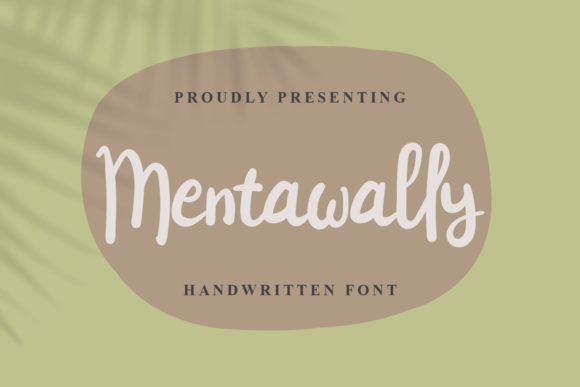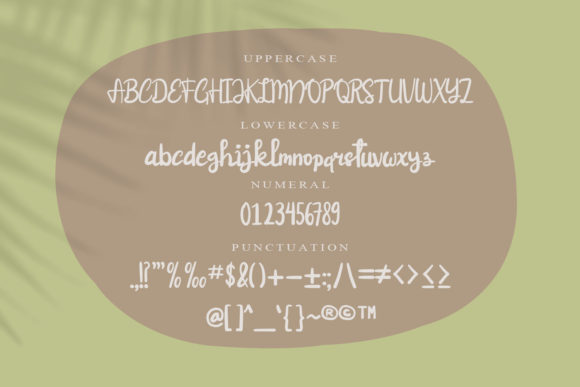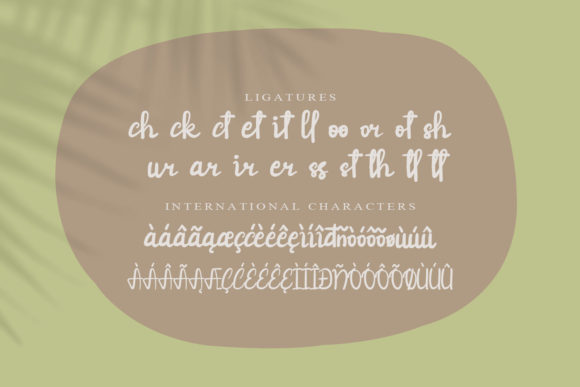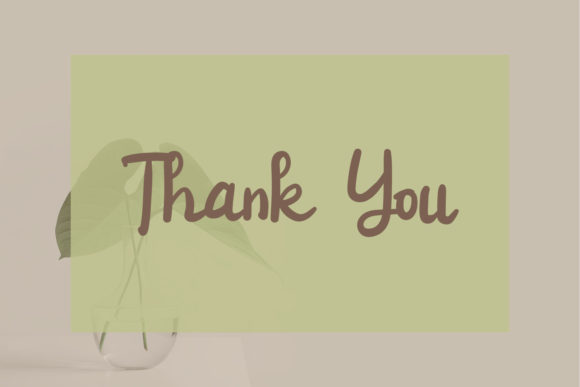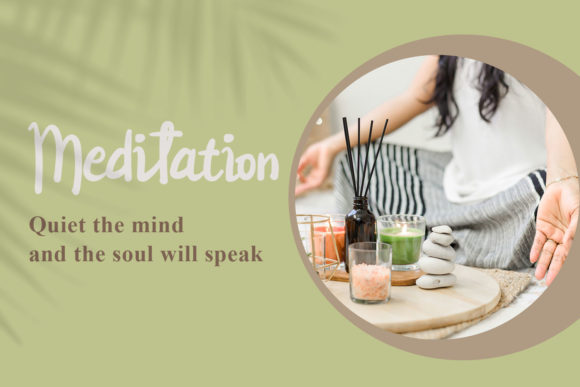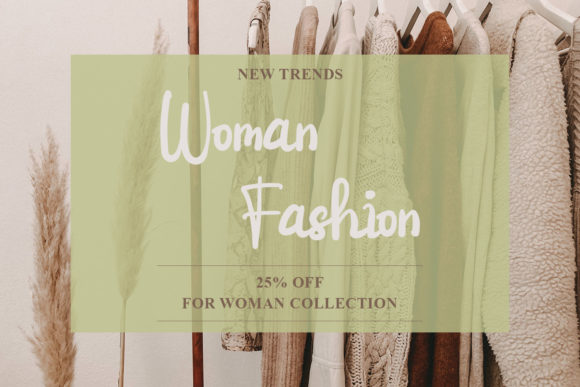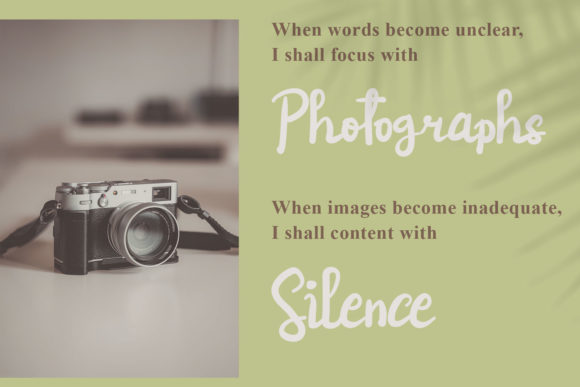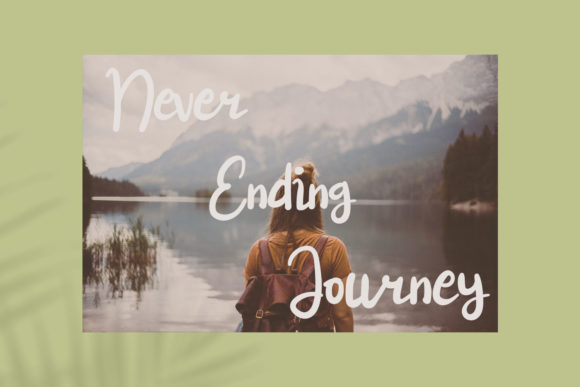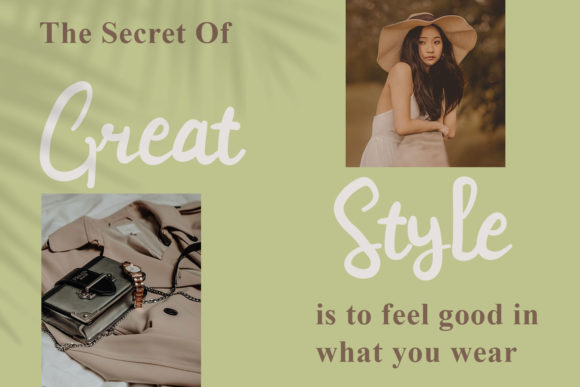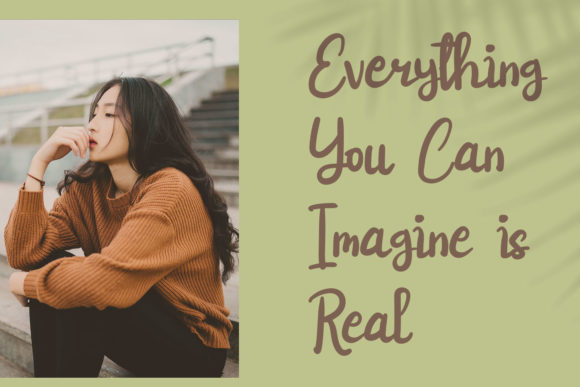
Mentawally Font
About Mentawally Font
“Mentawally” is a beautiful handwritten font that brings a sense of creativity and uniqueness to a variety of design projects. Its distinct style and charming characters make it a versatile choice for a wide range of creative endeavors.
One of the standout features of “Mentawally” is its suitability for SVG designs. SVG (Scalable Vector Graphics) is a popular format used for creating visually appealing and resizable graphics, and “Mentawally”‘s intricate and artistic design makes it a great choice for such projects. Whether you’re working on digital illustrations, graphics for websites, or any other SVG-based designs, this font can help add a personal and handcrafted touch.
“Mentawally” is also well-suited for branding and logos. Its handwritten appearance adds a sense of authenticity and originality, making it an excellent choice for businesses and brands that want to convey a unique identity. Whether you’re creating a logo for a small business or a personal project, this font can help your brand stand out and leave a memorable impression.
The font’s versatility extends to various creative projects, including stickers, Cricut projects, and more. Its aesthetic appeal and distinct characters make it a great option for adding text to physical or digital creations. Whether you’re designing stickers for packaging, crafting with a Cricut machine, or engaging in other creative activities, “Mentawally” can elevate your projects with its artistic flair.
In summary, “Mentawally” is a font that caters to a wide range of creative projects. Its beautiful handwritten style, suitability for SVG designs, branding potential, and versatility make it a valuable asset for designers, crafters, and creators looking to add a touch of authenticity and creativity to their work.